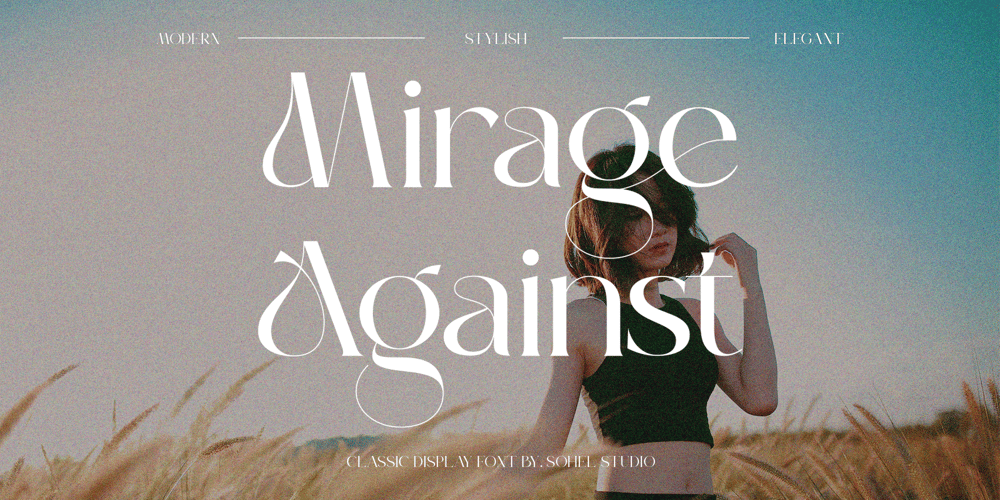
Mirage Against Sh Font Family was designed by Akhmad Husain Rifa’i and published by Sohel Studio. Mirage Against Sh contains 1 styles and family package options. Mirage Againts is a Modern elegant serif typeface with Unique alternative , multilingual support with perfect kerning. This typeface is perfect for an elegant & luxury logo , classy editorial design, women’s magazine, fashion brand , cosmetic brand, fashion promotion , modern advertising design, invitation card, art quote, home decoration , book/cover titles, special events, Tote bag, T-shirt, Advertising and much more. Mirage Against Features:· Uppercase And Lowercase· Alternates· Numerals & Punctuation· Accented characters· Multilingual Support· Unicode PUA Encoded While using this product, if you encounter any problem or spot something we may have missed, please don’t hesitate to drop us a message. We’d love to hear your feedbacks in order to further fine-tune our products. Thanks and have a wonderful day .